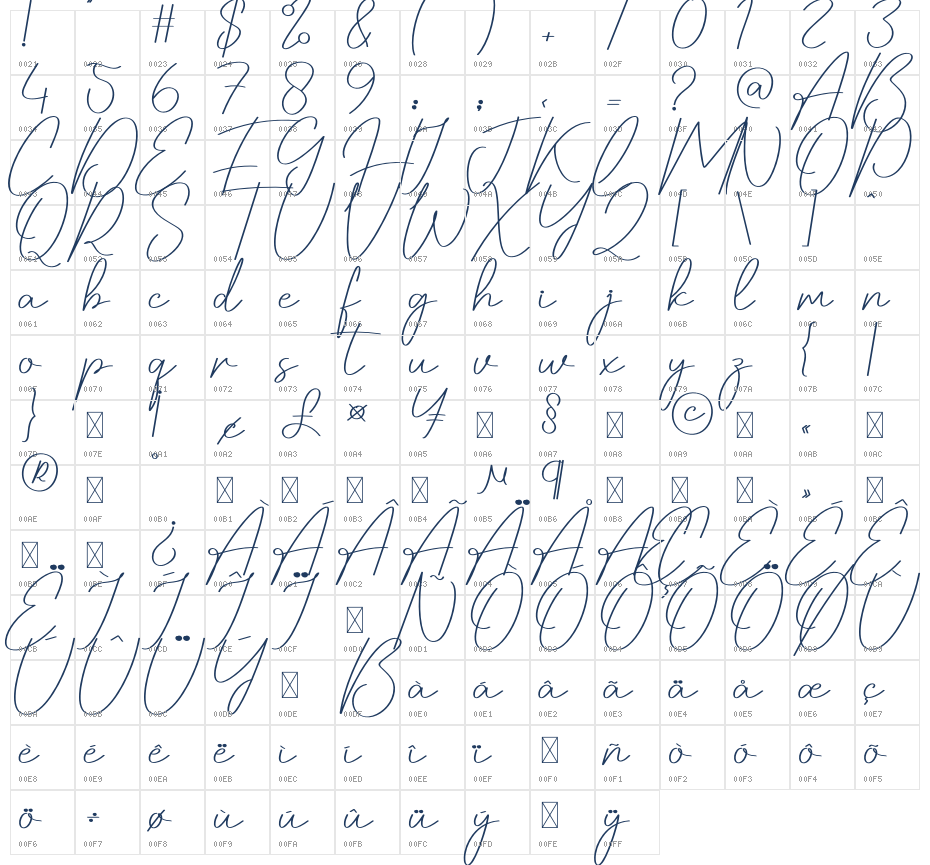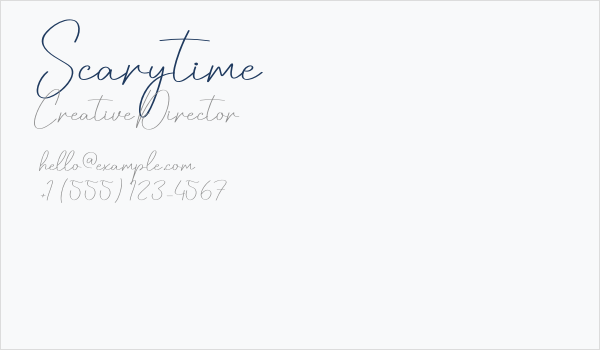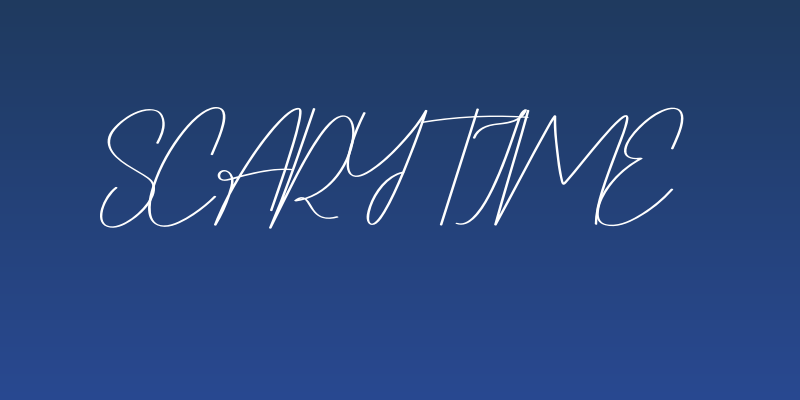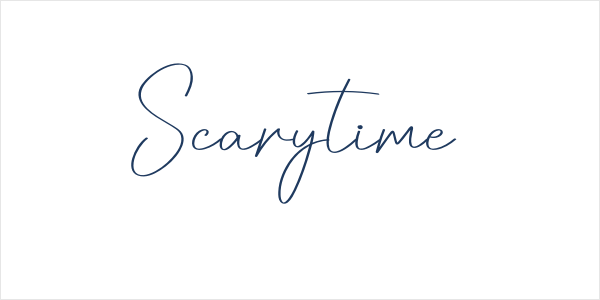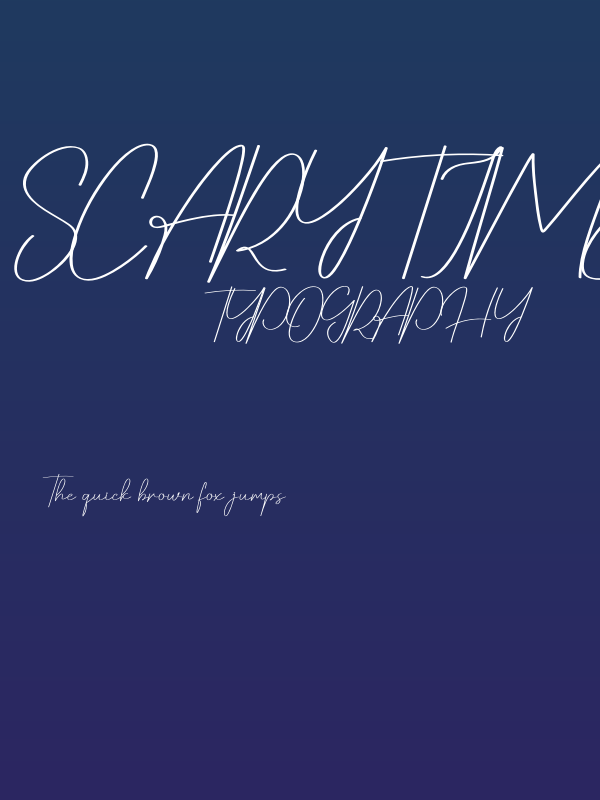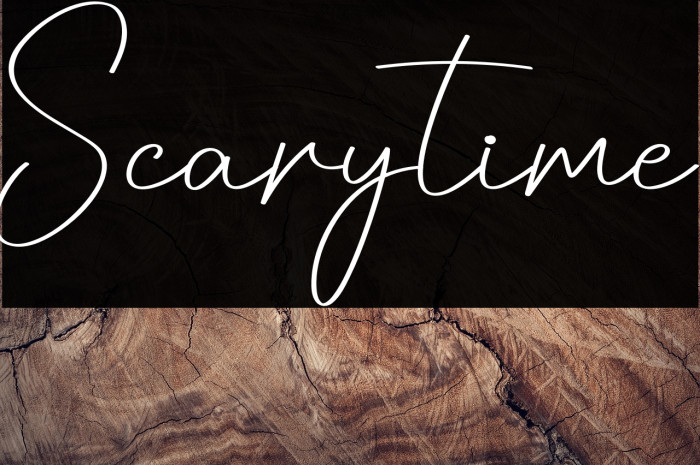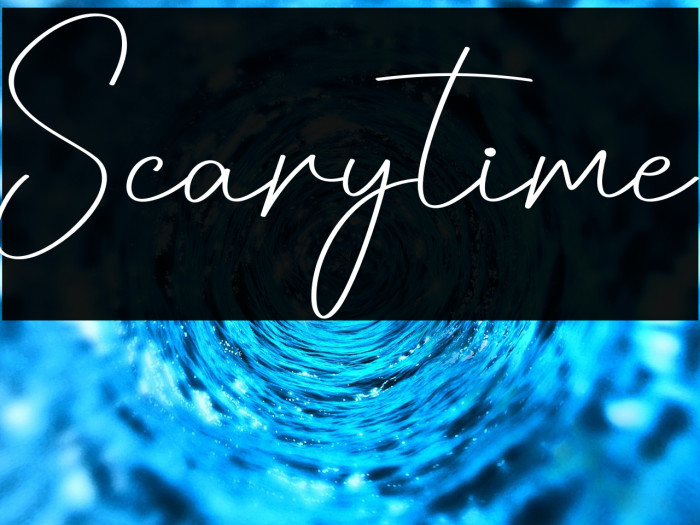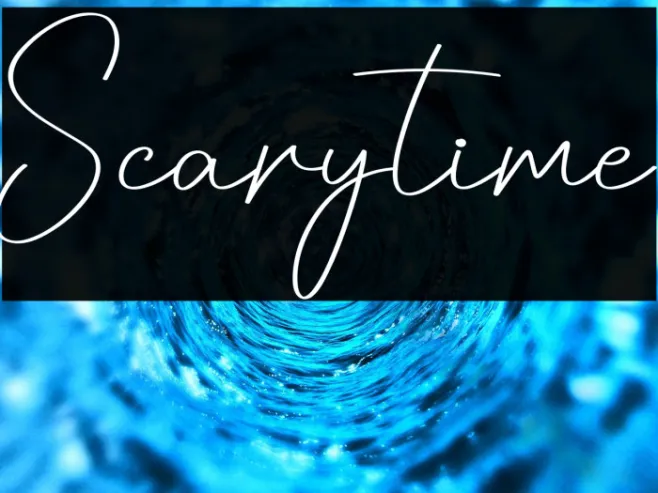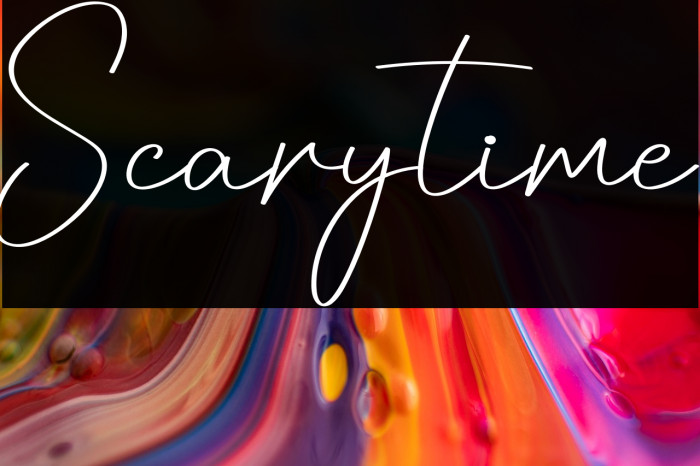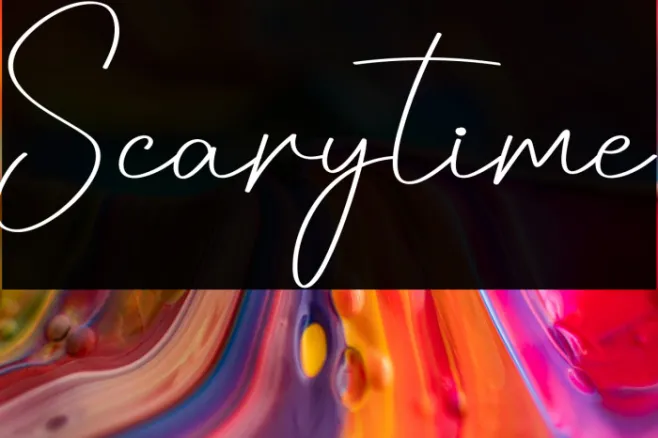
Scarytime Font
Scarytime Description
A cursive, handwritten style font with elegant, flowing lines and a delicate appearance.
| Overall Style | Elegant, Casual, Personal |
| Use Case | Invitations, greeting cards, personal branding, fashion branding, logos, decorative text. |